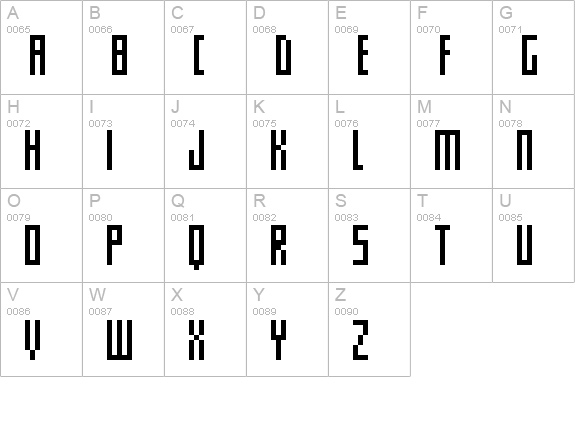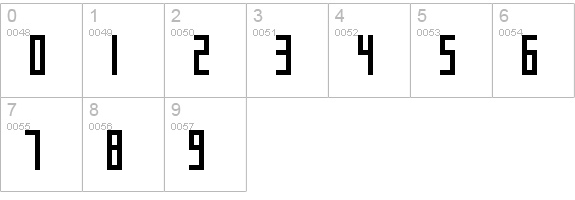
Slim Thin Pixelletes Font Details
Slim Thin Pixelletes is a delicate, low-contrast variant in the Slim typeface family \xE2\x80\x94 well suited to fashion editorial, minimal branding, and high-contrast display.
Slim Thin Pixelletes font is a sleek and modern typeface that exudes elegance and sophistication. Its slim and thin strokes give it a delicate and graceful appearance, making it perfect for projects that require a touch of refinement. The pixelated design adds a unique twist to the font, giving it a contemporary and trendy feel.